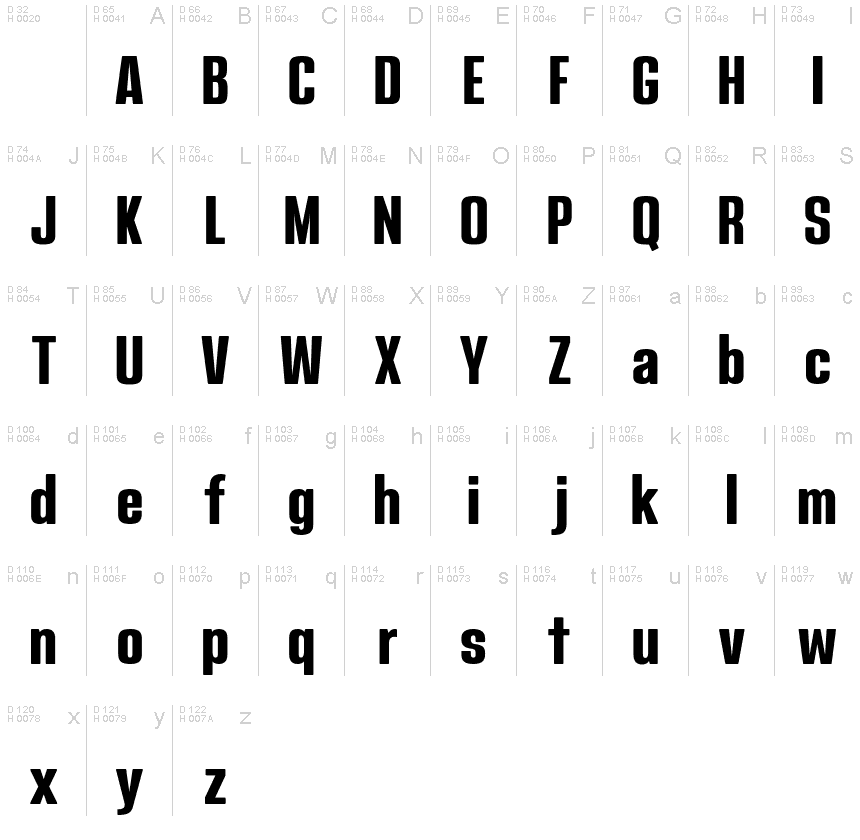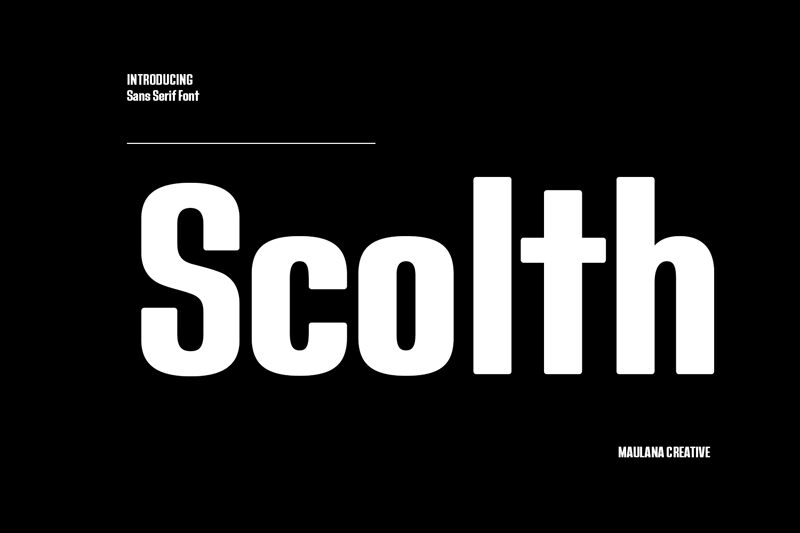
Scolth Free Bold Condensed
Scolth Bold Condensed stands as a testament to the artistry of Maulana Creative, carving out a niche in the Scolth font family with its sans serif elegance and bold, assertive presence. This typeface marries classic sensibility with contemporary flair, featuring rounded strokes that infuse a touch of playfulness into every character. With an array of ligatures and alternates at your fingertips, Scolth Bold Condensed invites you to unleash your creativity across various platforms.
Its condensed width is particularly adept for impactful headlines in logos, social media banners, movie titles, and book covers. Yet its versatility doesn't end there; this font handles both concise callouts and extensive text with ease—perfect for secondary text pairings whether you’re working alongside sans or serif counterparts. Embrace over 100+ language supports that ensure your message transcends borders. Make every project resonate with the distinctive charm of Scolth Bold Condensed.